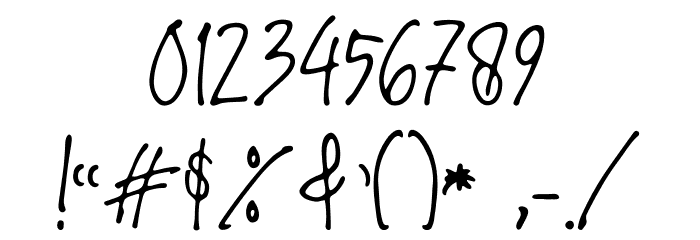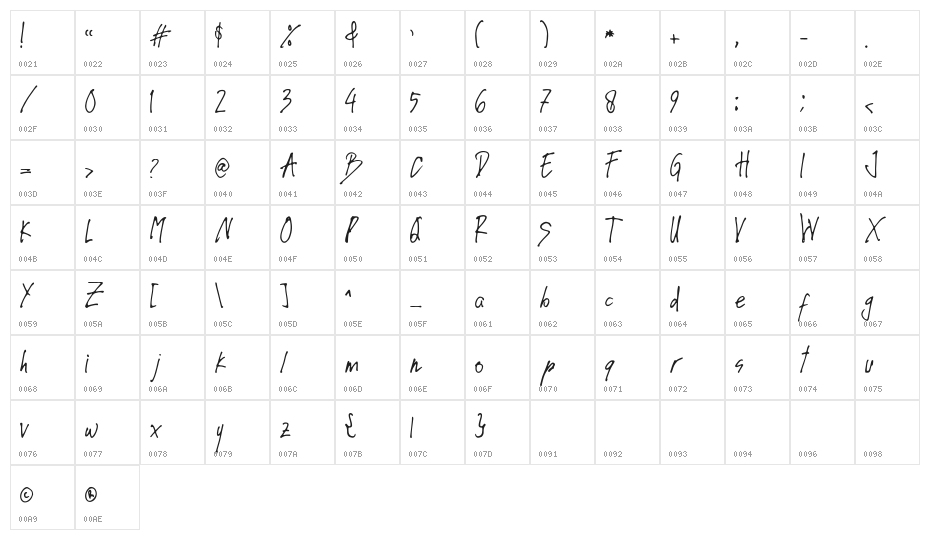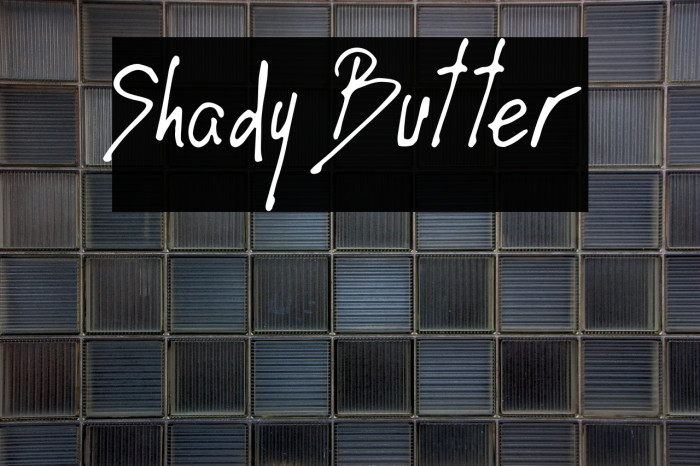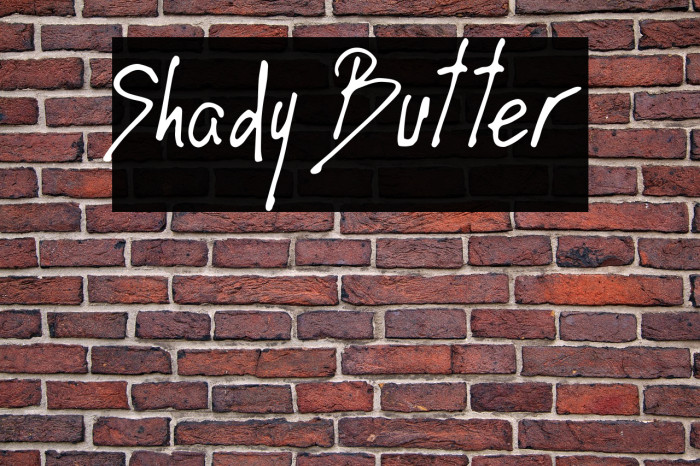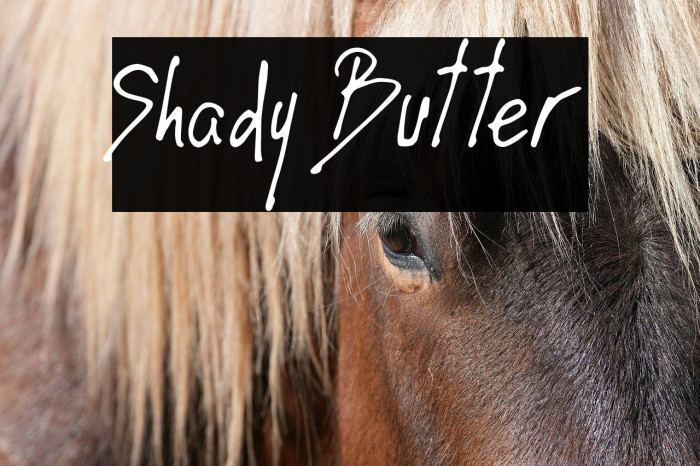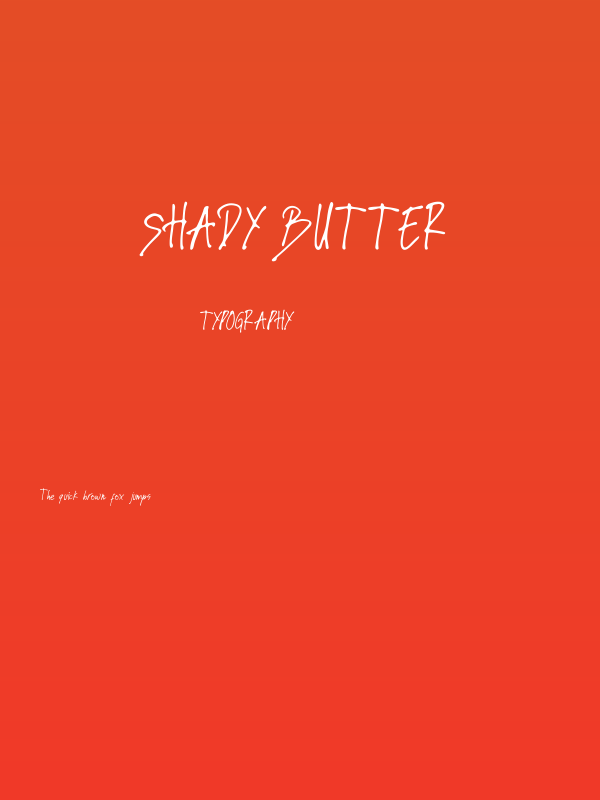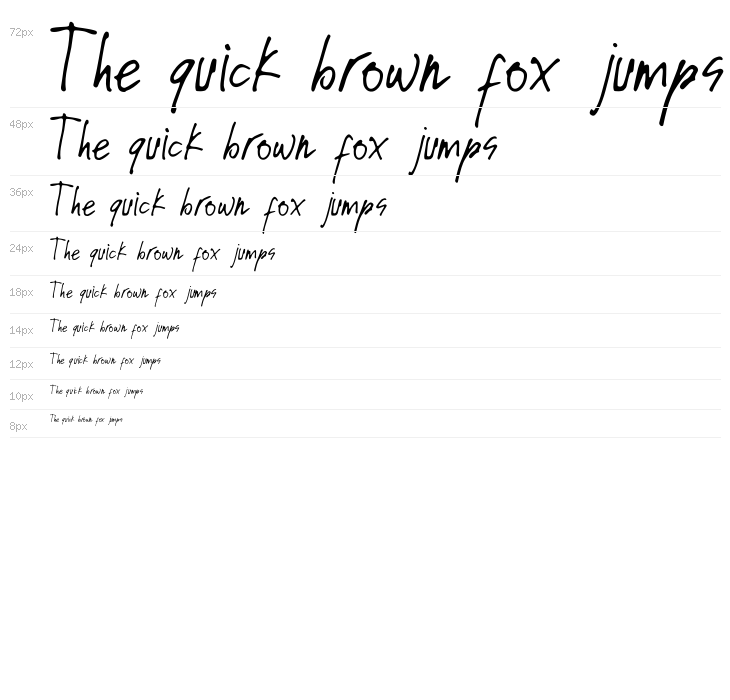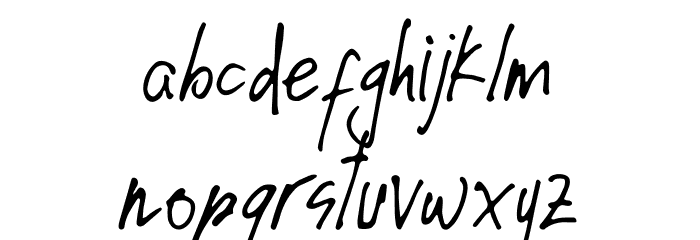
Shady Butter Font
Shady Butter Description
This font exudes a casual and spontaneous vibe, reminiscent of handwritten notes with a touch of artistic flair. The characters are fluid and dynamic, with varying stroke widths that add a sense of movement and energy. The uppercase letters are bold and slightly slanted, while the lowercase letters maintain a consistent flow, enhancing readability. Numbers and special characters are crafted with the same lively style, making them stand out. The overall appearance is both playful and sophisticated, suitable for projects that require a personal touch.
Overall StyleCasual, Artistic
Use CaseLogos, Headlines, Creative projects
Proposed ProjectsIdeal for greeting cards, personal branding, creative posters, and social media graphics.